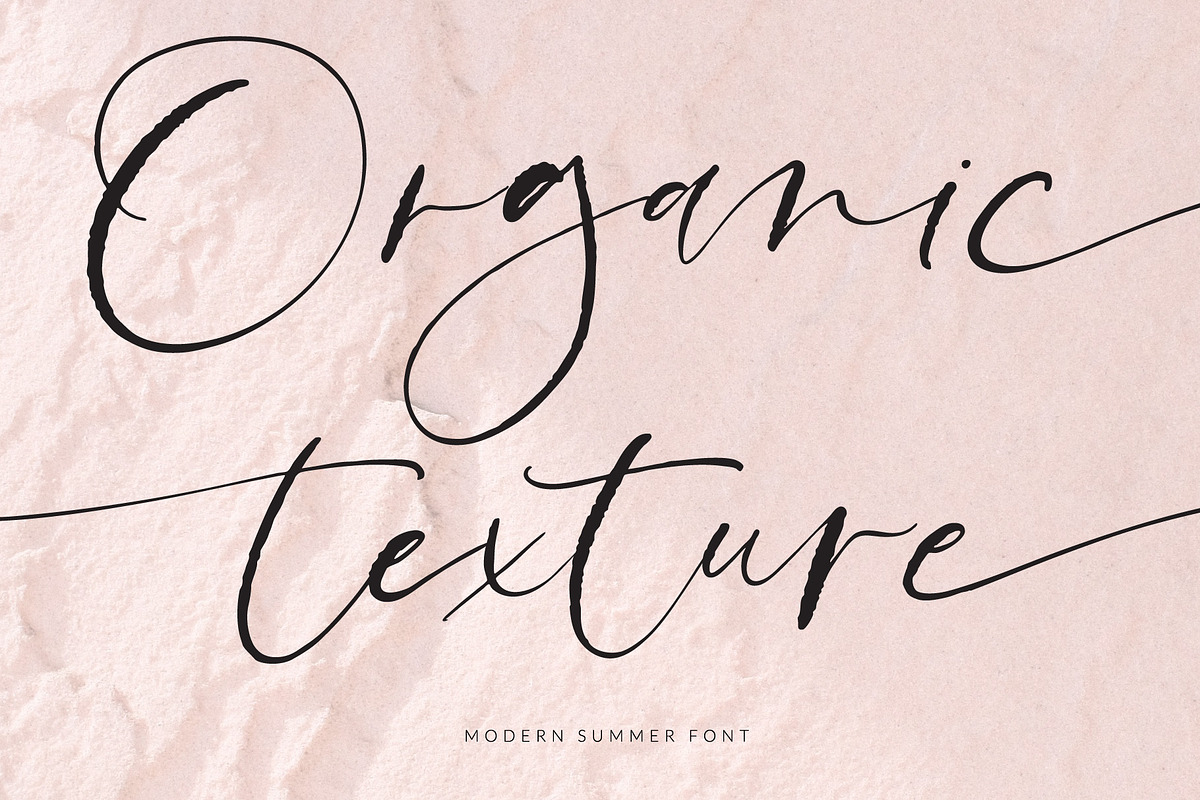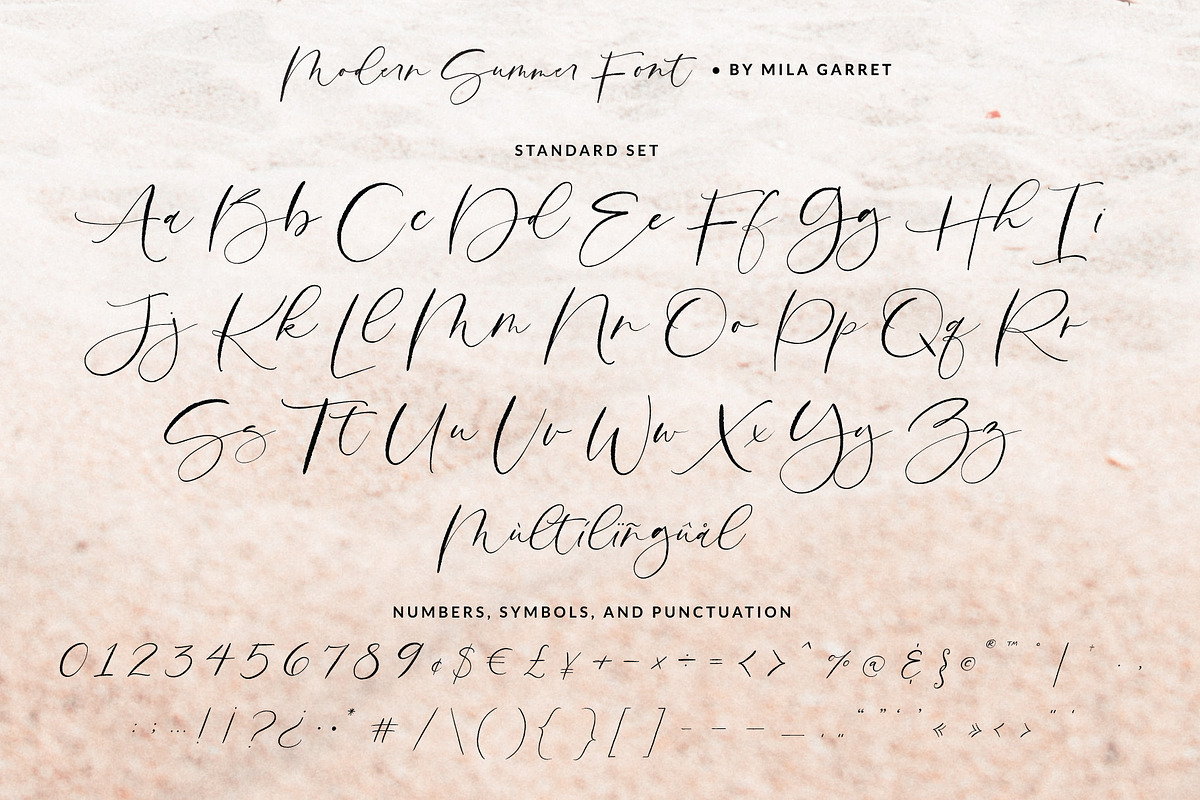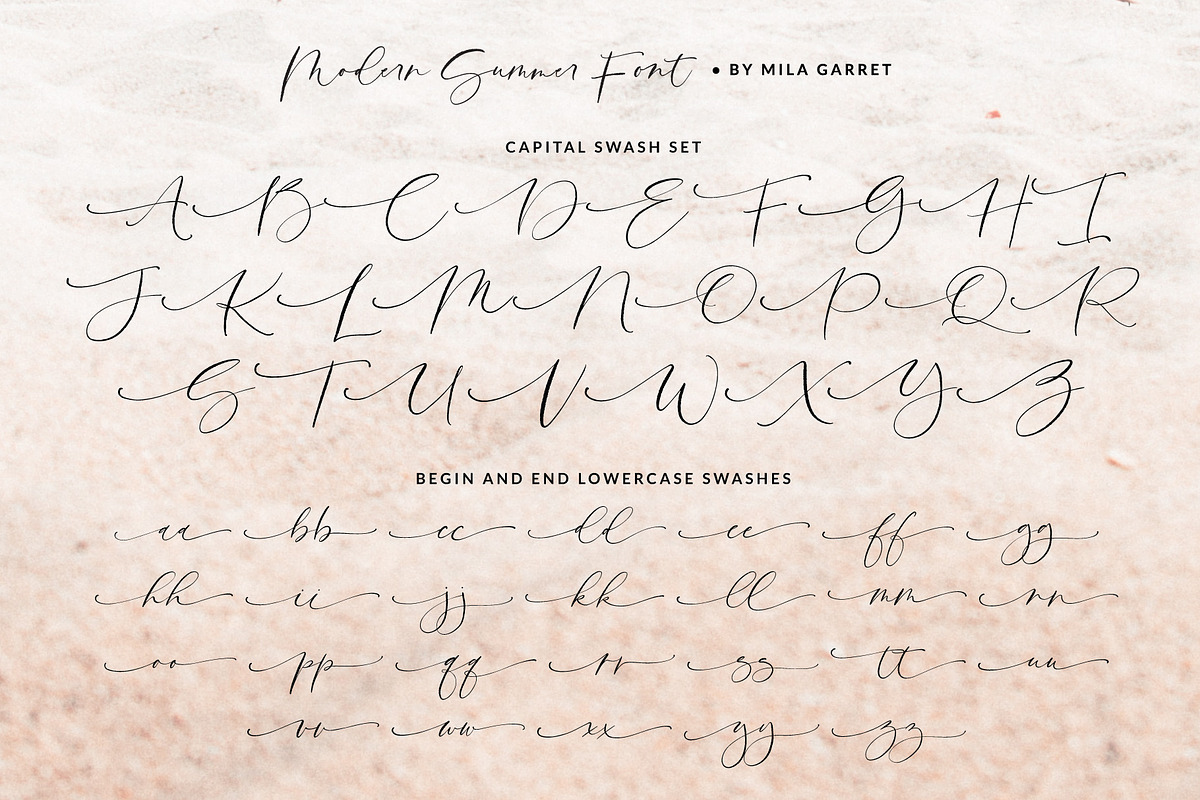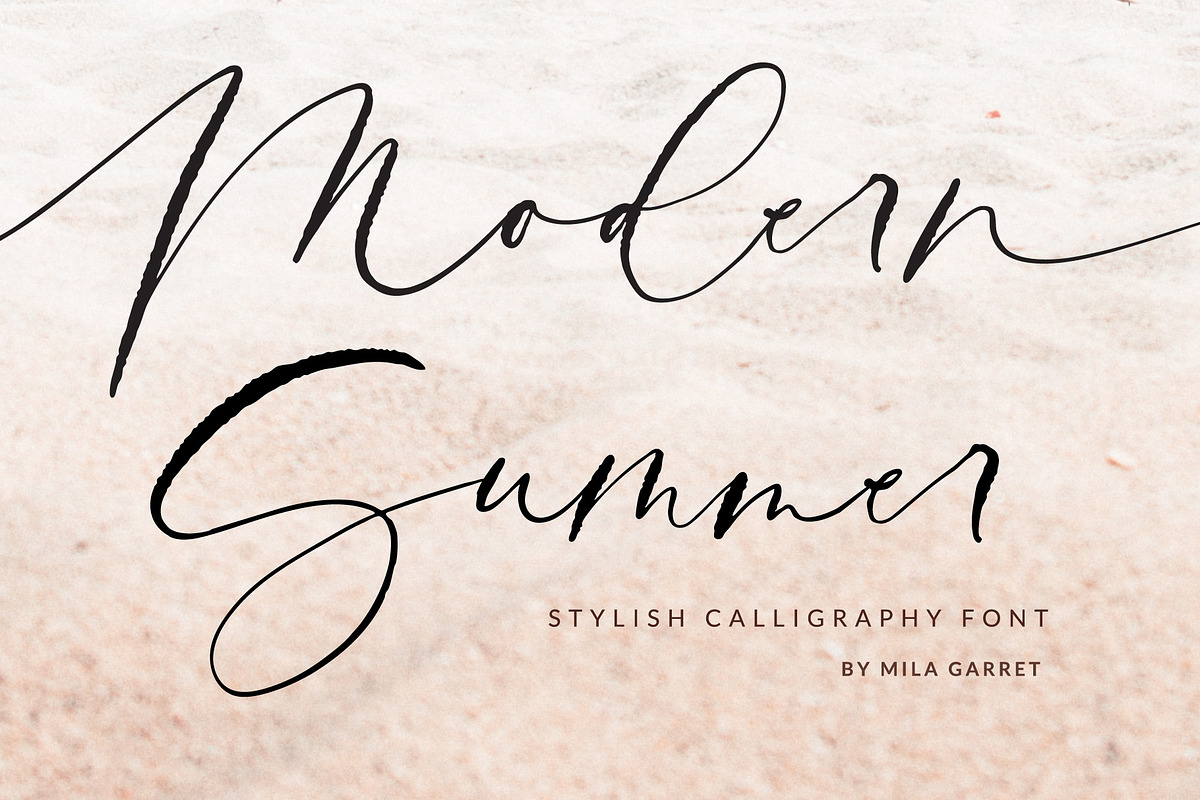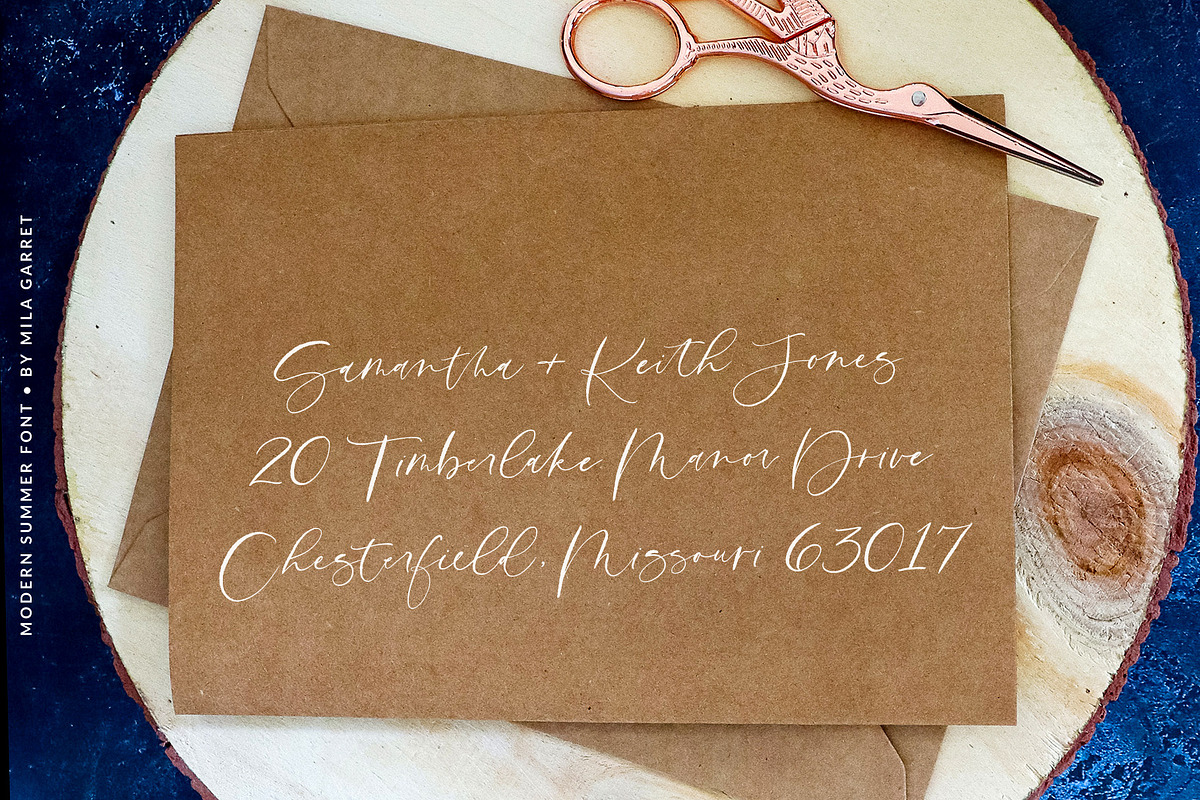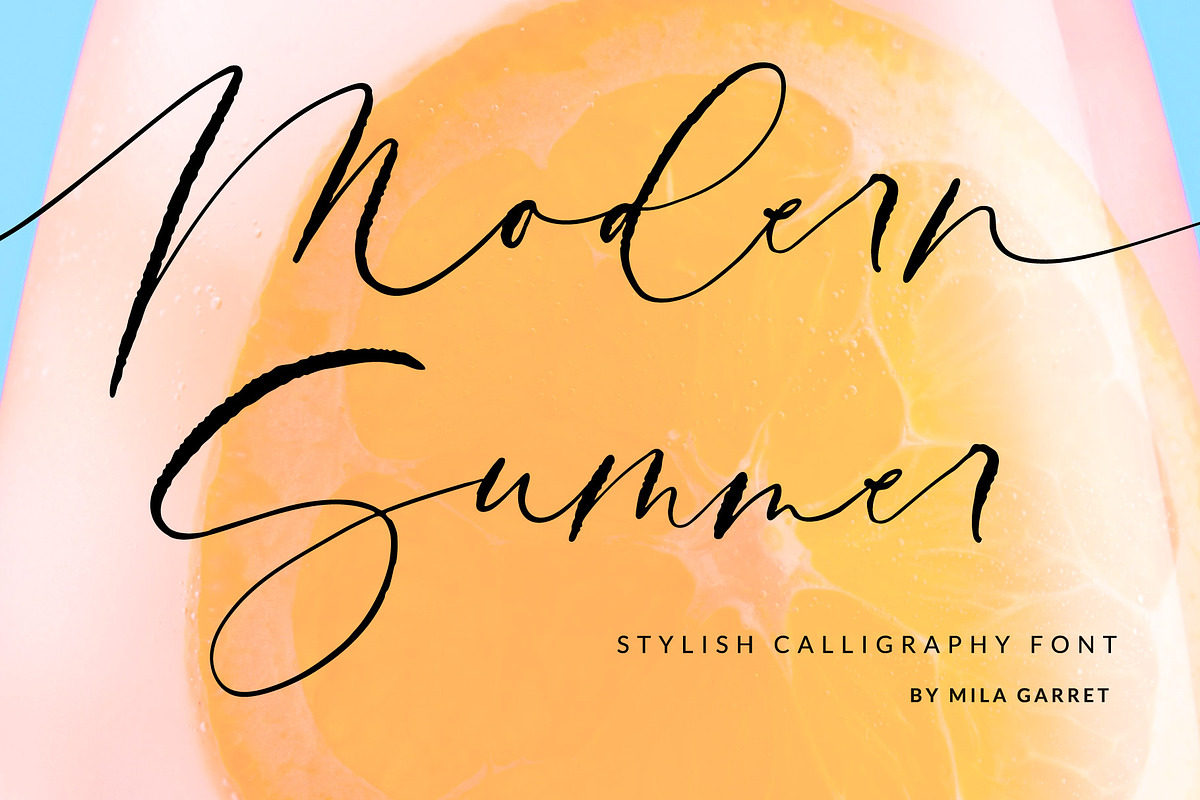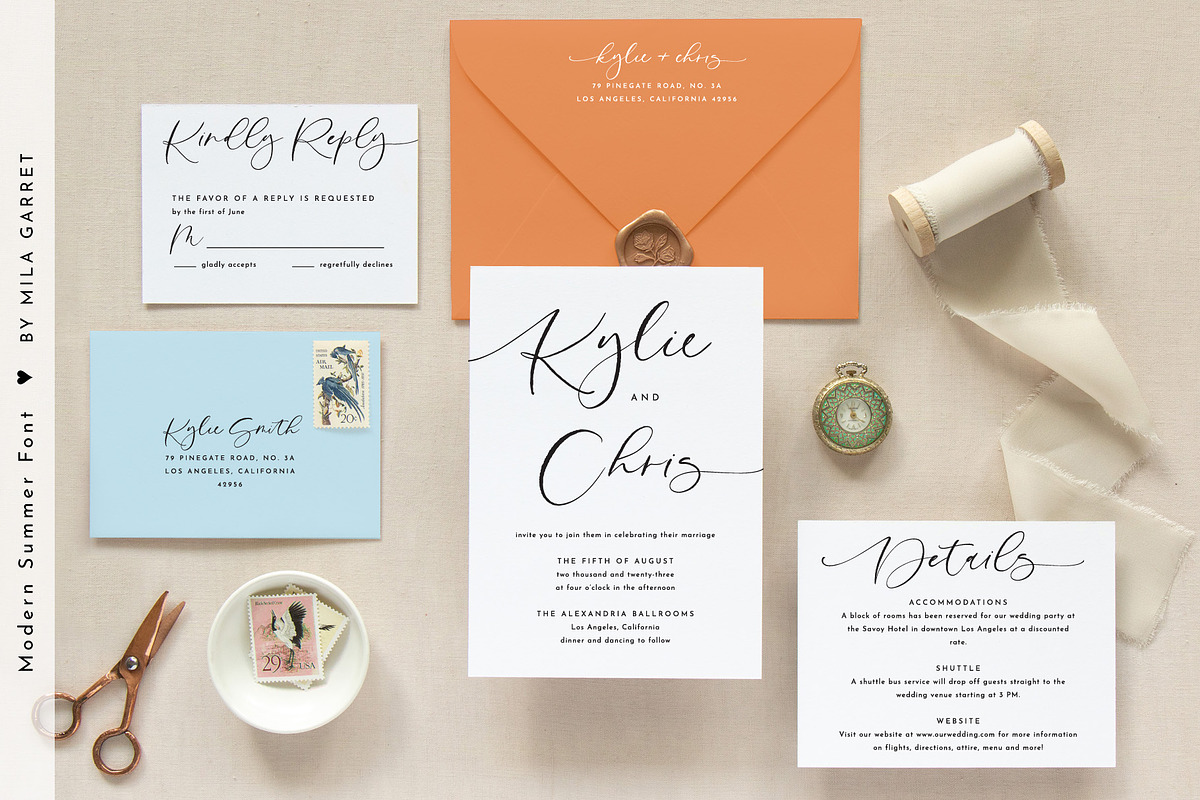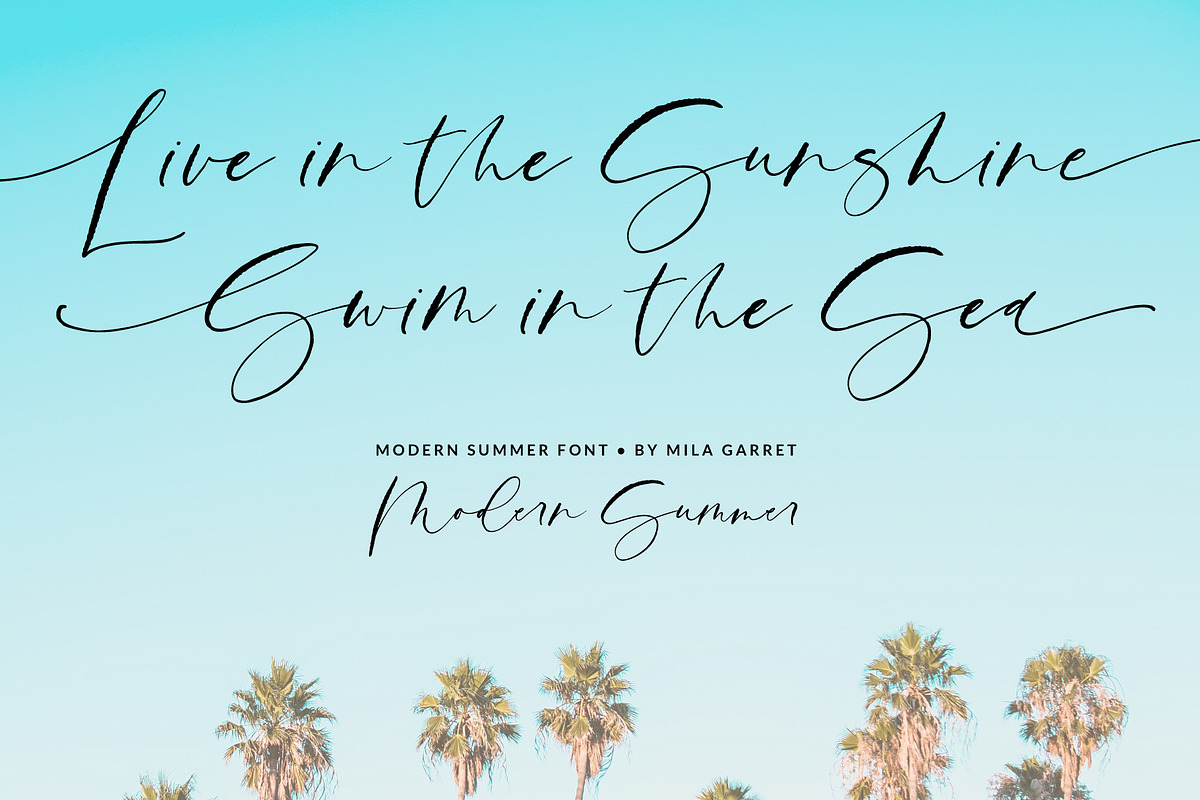
Modern Summer Calligraphy Logo Font
✨ Meet Modern Summer, a textured modern calligraphy font loaded with swash alternates and ligatures for a handwritten feeling. Hand-crafted with care, Modern Summer is well suited for wedding invitations and wedding stationery, feminine logos, personal branding, websites, blogs, and more!
Modern Summer Font Features
- Full Set of standard alphabet and punctuation
- Extra set of beginning swashed lowercase
- Extra set of ending swashed lowercase
- Extra set of beginning swashed uppercase
- Handwritten ligatures
- Multilingual Characters (ÁÂÄÀÅÃÆÇÐÉÊËÈÍÎÏÌÑÓÔÖÒØÕŒÞÚÛÜÙẂŴẄẀÝŶŸỲ áâäàåãæçðéêëèíîïìñóôöòøõœþßúûüùẃŵẅẁýŷÿỳŠŽšž€£¥ªº)
- Inky Rough Texture